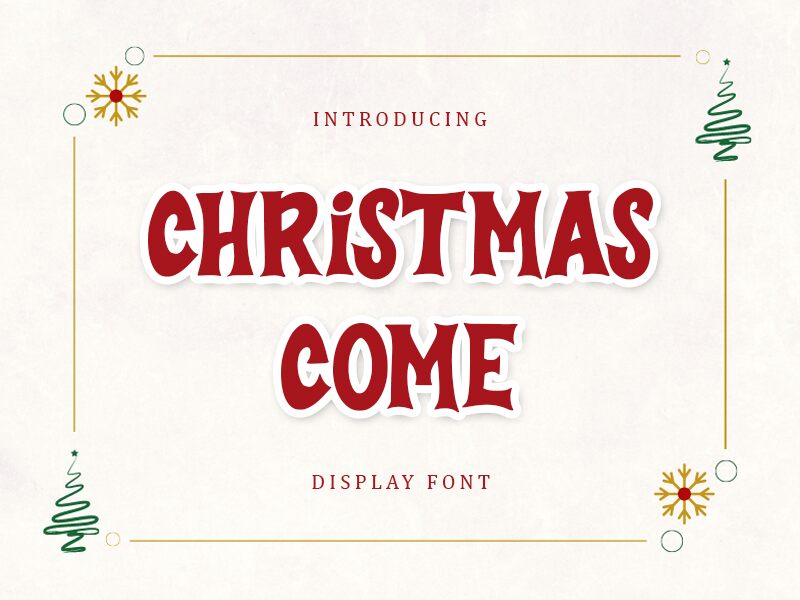
Christmas Come, designed by Alif Ryan Zulfikar, captures the essence of holiday cheer with every character. Its bold, semi-condensed letterforms exude the warmth and exuberance of Christmas, making it an ideal choice for a wide range of creative endeavors. From crafting bespoke Christmas cards that stand out to designing festive presentations that leave a lasting impression, this font radiates joy in each application.
With its unique blend of traditional holiday vibes and modern design elements, Christmas Come promises to infuse your projects with an unmistakable seasonal flair. Perfect for digital design or handmade crafts, this font not only aligns seamlessly with the yuletide spirit but also elevates your work to new heights of creativity. Embrace the magic of the holidays in your designs with Christmas Come – where every day is a celebration.